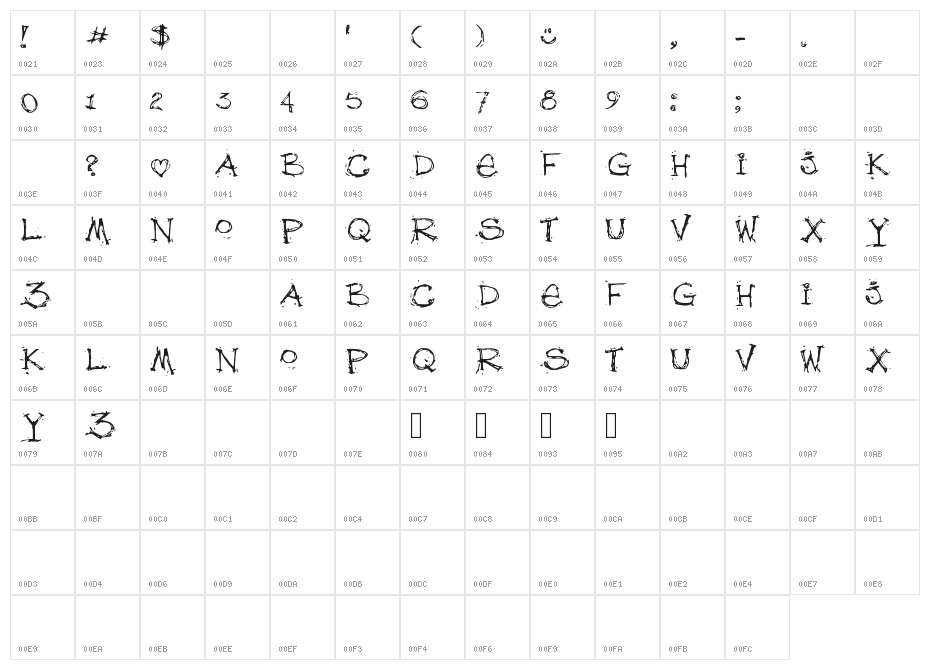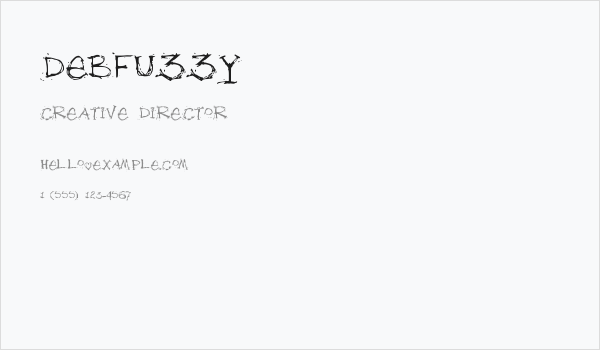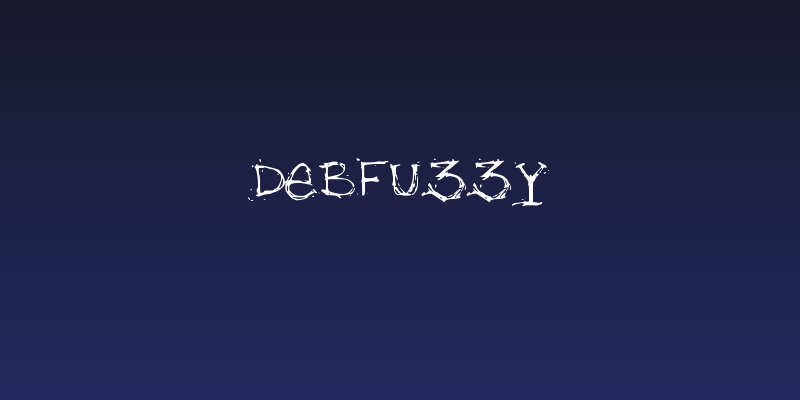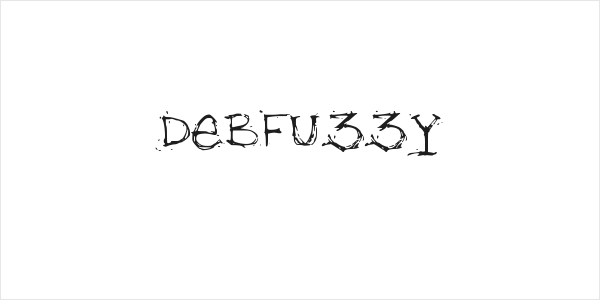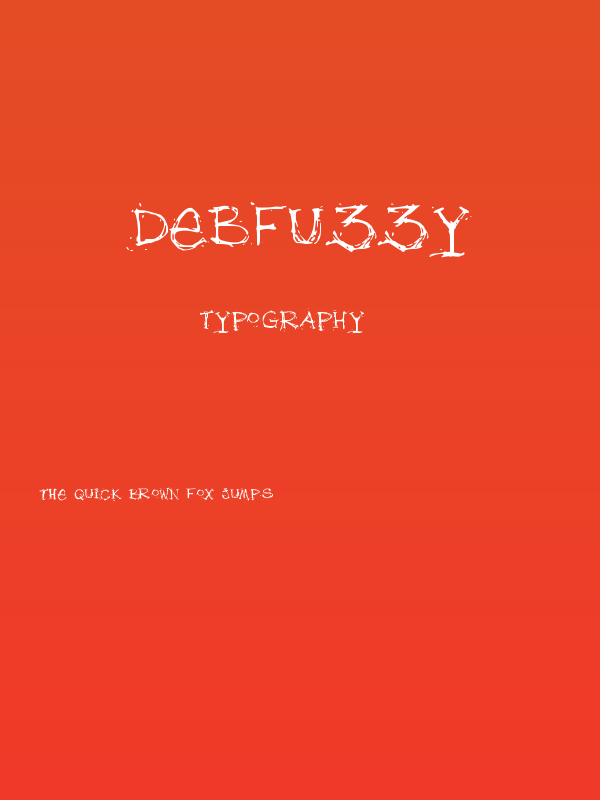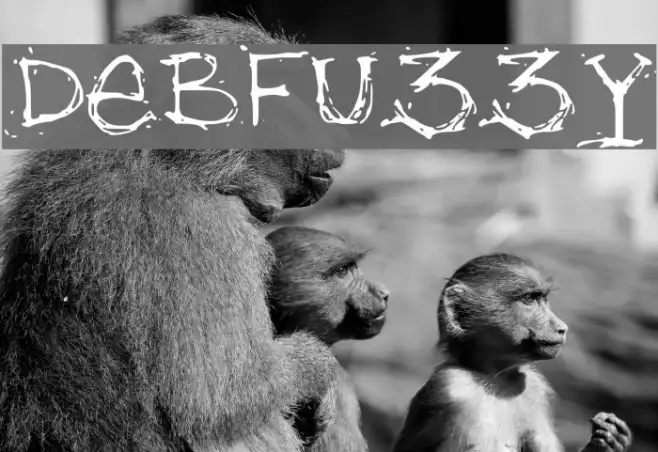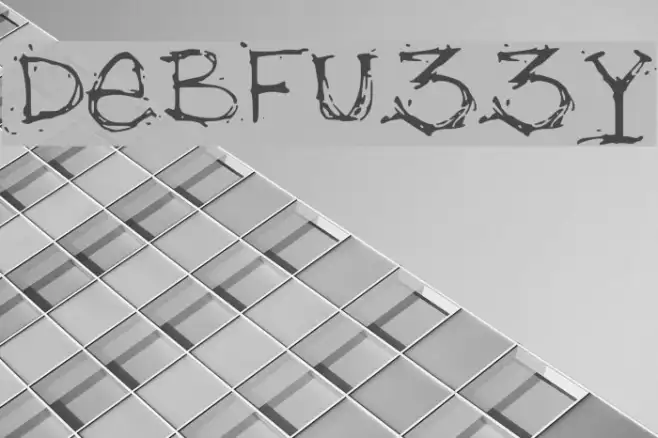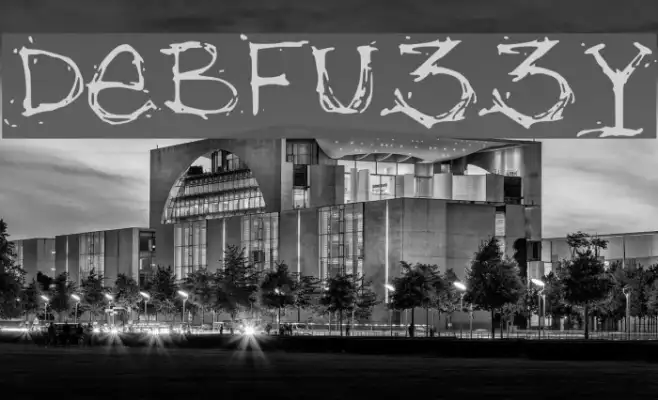
debfuzzy Font
debfuzzy Description
This font features a grungy, distressed style with irregular edges and a textured appearance, reminiscent of graffiti or urban decay. The characters are bold and have a hand-drawn quality, with splatters and rough strokes that give them a chaotic and energetic feel. The uppercase and lowercase letters maintain a consistent style, while the numbers and special characters follow the same rugged aesthetic. This font is ideal for projects that require a rebellious or edgy look, such as music album covers, posters, or streetwear branding.
DEBFUZZY UPPERCASE
DEBFUZZY LOWERCASE
DEBFUZZY OTHER CHARS
| Overall Style | Grunge, Urban, Chaotic |
| Proposed Projects | Ideal for music album covers, edgy posters, streetwear branding, and urban-themed designs. |